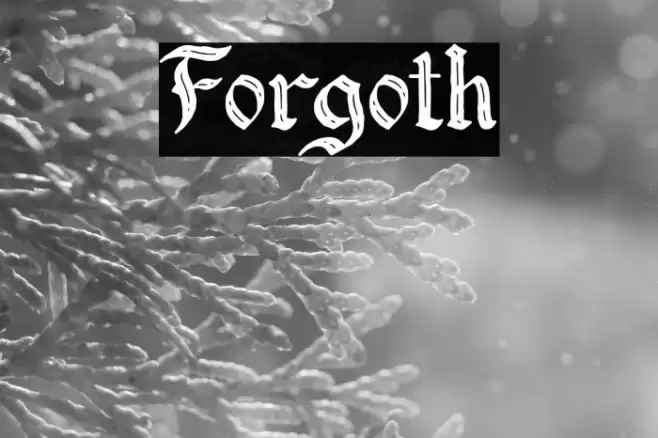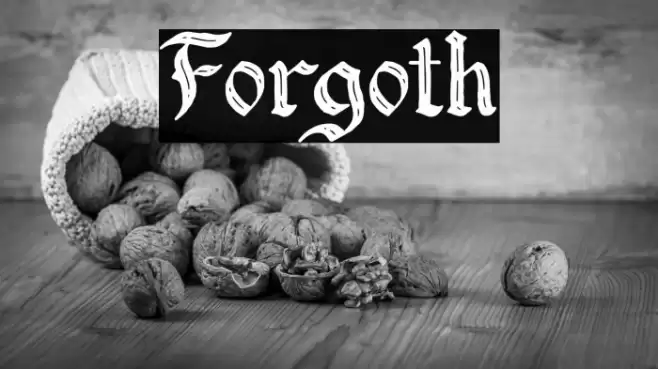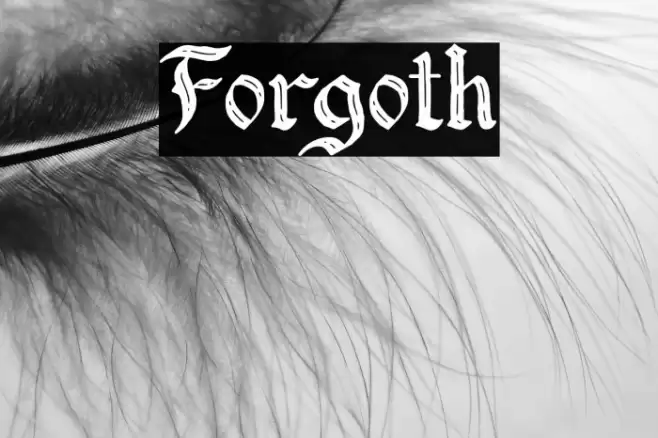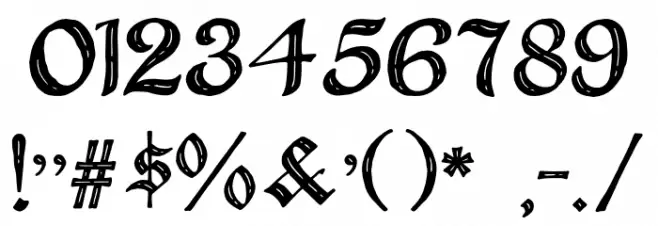
Forgoth Font
Forgoth Description
This font features a bold and dramatic style, reminiscent of traditional blackletter typefaces. The characters are ornate with sharp, angular lines and intricate detailing, giving them a gothic and medieval appearance. The uppercase letters are particularly striking, with elaborate flourishes and a strong presence. The lowercase letters maintain the same decorative style, ensuring consistency throughout the typeface. Numbers and special characters are equally stylized, making this font suitable for creating a cohesive and impactful design. The overall aesthetic is both historical and artistic, making it ideal for projects that require a touch of elegance and tradition.
A bold, gothic-style font with ornate, angular characters from Regular fonts.
- Proposed Projects: Ideal for historical-themed designs, book covers, posters, and branding that requires a gothic or medieval touch.
- Overall Style: Vintage
- Use Case: Headlines, Logos, Decorative text